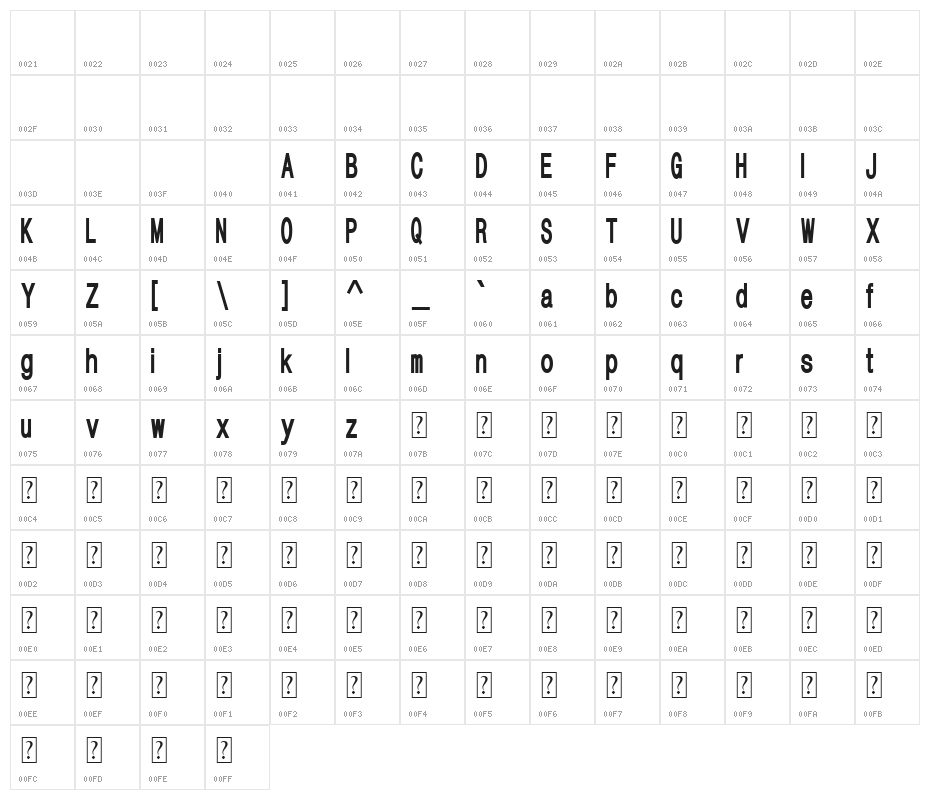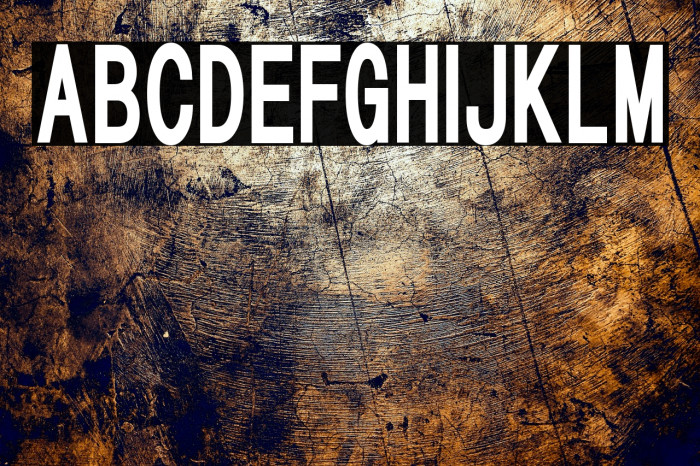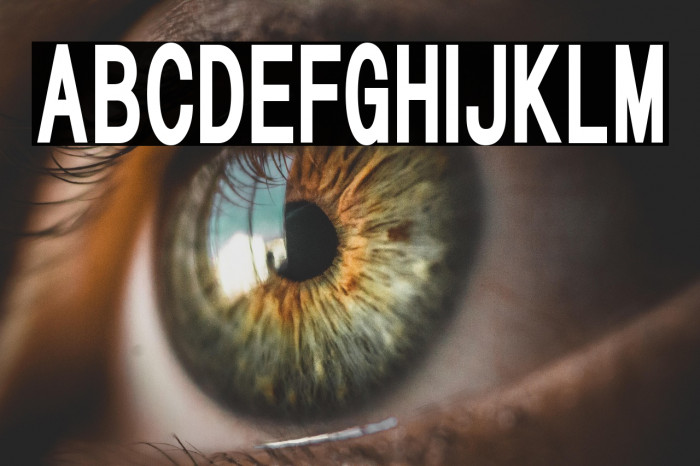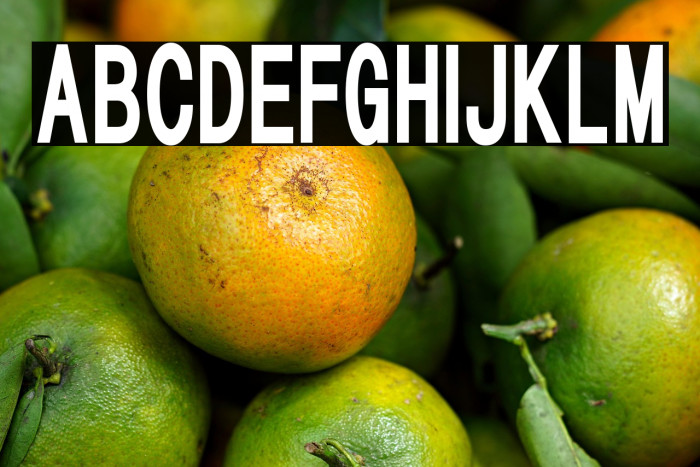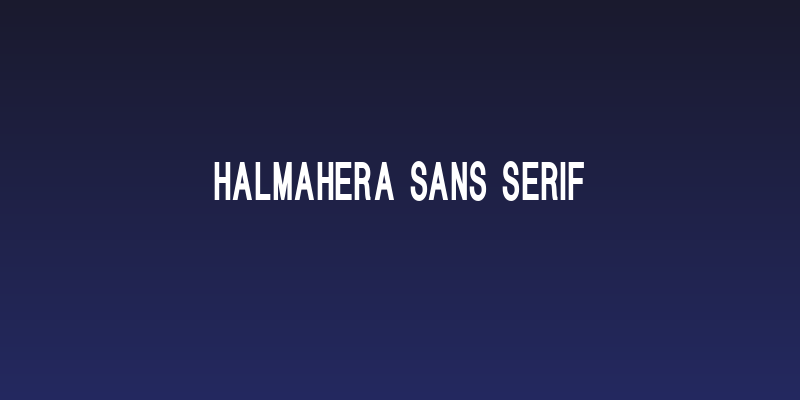
HALMAHERA SANS SERIF Font
HALMAHERA SANS SERIF Description
This font features a bold and robust sans-serif style, characterized by its thick and uniform strokes. The uppercase and lowercase letters maintain a consistent width, providing a strong and impactful appearance. The design is clean and straightforward, with no decorative elements, making it highly legible and suitable for various applications. The characters are evenly spaced, contributing to its readability. The font's modern and professional look makes it ideal for use in headlines, signage, and branding materials where clarity and emphasis are essential.
| Use Case | Headlines, Signage, Branding |
| Proposed Projects | Ideal for headlines, signage, branding, and any project requiring a strong, clear typeface. |